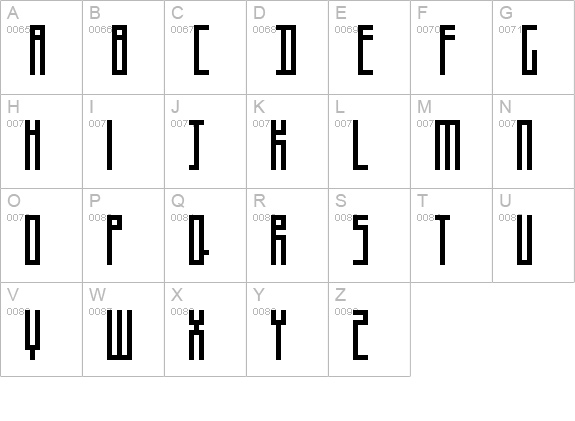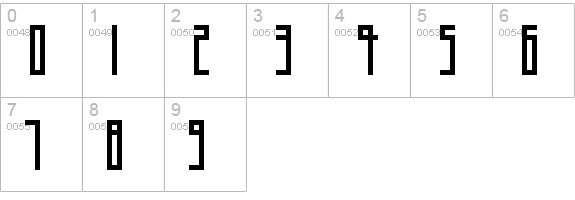
Thinman New is a free for personal use font in the Modern > Techno category, designed by Darrell Flood. It has been downloaded 65 times and is available for Windows, Mac and Linux.
Introducing Thinman, a sleek and modern new font perfect for adding a touch of sophistication to your designs. With its clean lines and minimalist aesthetic, Thinman is ideal for a wide range of projects, from branding to print materials.